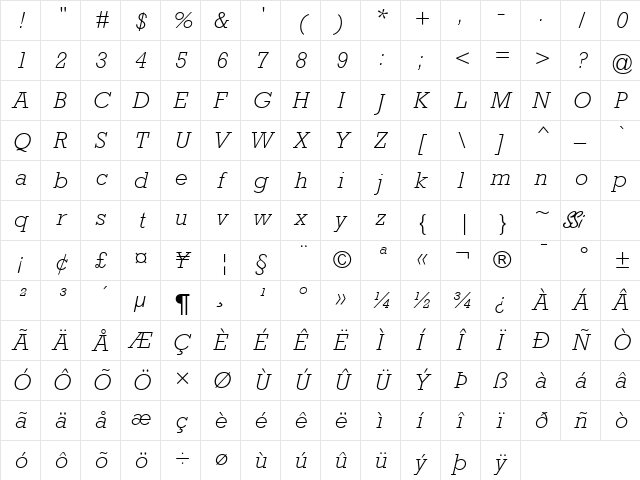
Astute Light SSi Light Italic
Design Context for Astute Light SSi
Astute Light SSi is a composed and adaptable typeface that performs quietly and consistently across a wide range of design contexts. The slanted form adds forward momentum and visual energy. Its slender proportions lend an understated elegance to any composition.
Pro Tip: Use Astute Light SSi for emphasis, pull quotes, and subheadings where its slanted energy can add rhythm to the layout.